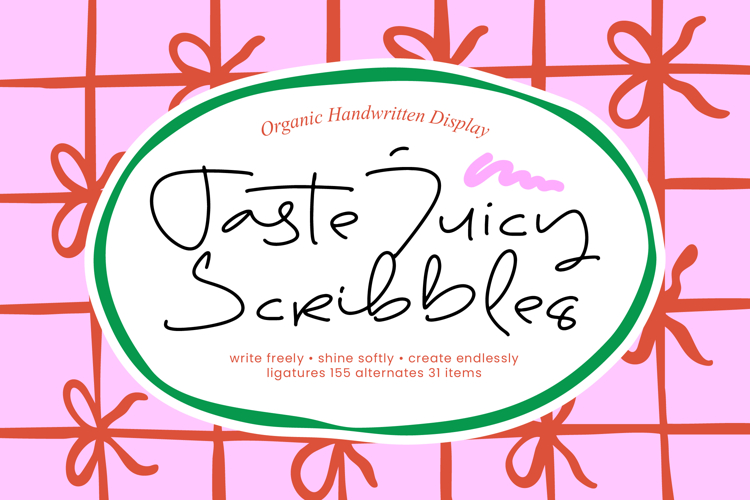
Taste Juicy Scribbles - Organic Handwritten Display
Taste Juicy Scribbles, a font that breathes life into every design with its unfiltered and organic movement. This isn't just a typeface; it is a celebration of spontaneous creativity and the beauty found in the perfectly imperfect stroke of a hand-held pen.
Inspired by the kinetic energy of sketches scrawled in the margins of a designer sketchbook, this font captures the frantic yet focused spirit of artistic expression. It mirrors the rustic charm of autumn afternoons and the cozy, unpolished aesthetic of a journal kept during quiet moments in a bustling city cafe.
While it carries the soul of a handwritten note, it functions with the professional precision of a modern serif display to ensure your headers command attention. It offers a unique alternative to traditional luxury typography, providing a high-contrast serif feel through its varying line weights while maintaining the effortless cool of a contemporary editorial font for maximum branding impact.